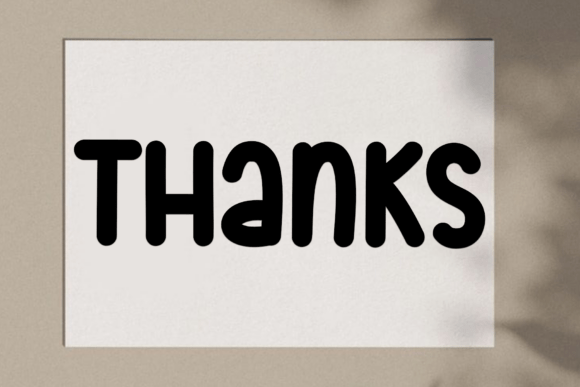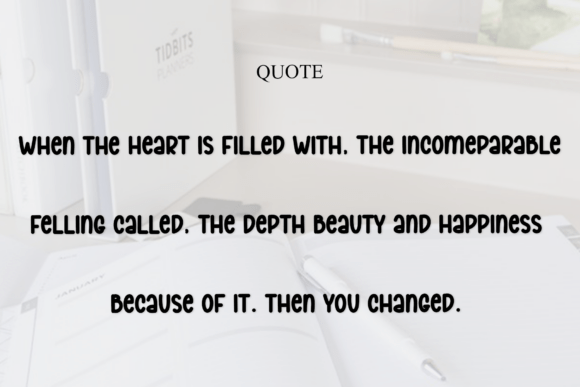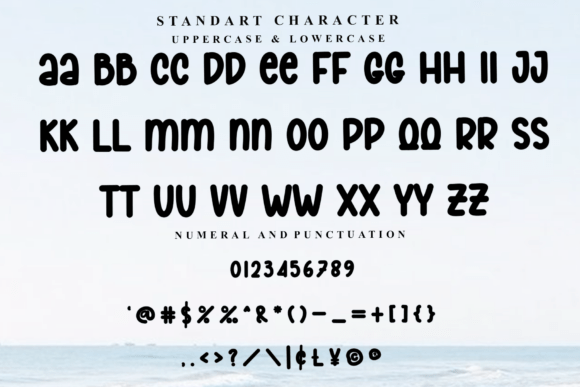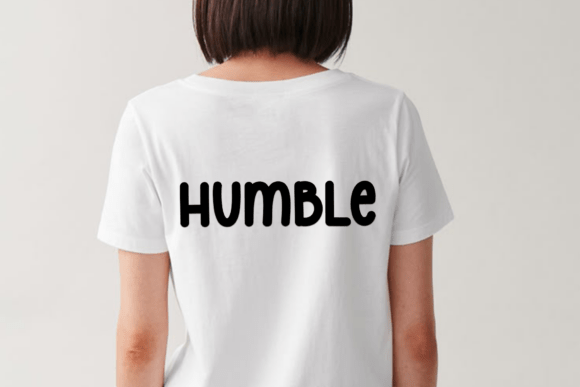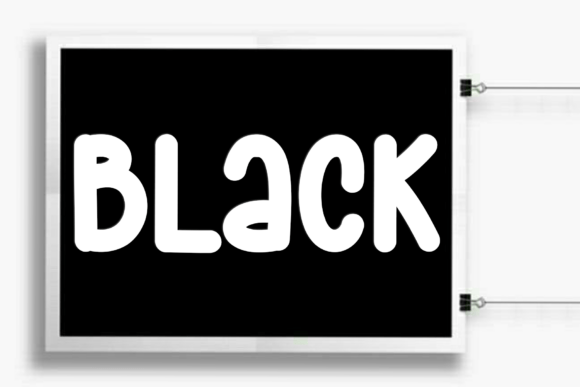
Doughnut Font: The Sweet Addition to Your Design Projects
Are you tired of using the same old fonts in your design projects? Look no further than the Doughnut Font, a beautiful and eye-catching font that is sure to add a touch of sweetness to your creations. Designed with a soft, unique touch, this font is perfect for designers, crafters, and artists looking to add a special character to their work.
A Unique and Versatile Font
The Doughnut Font is a distinctive font that stands out from the crowd. Its soft, rounded edges and unique strokes give it a special character that makes it meaningful and versatile for future use. Whether you’re working on a design project, crafting a handmade card, or creating a work of art, this font is perfect for adding a personal touch.
Wide Range of Characters
One of the best things about the Doughnut Font is its wide range of characters. With various characters to choose from, you can create unique and interesting text that will capture the attention of your audience. Whether you’re looking to create a bold statement or a subtle design, this font has got you covered.
The Doughnut Font is perfect for a wide range of design projects and crafts. Whether you’re creating a logo, brochure, or social media graphic, this font is sure to make your design stand out. It’s also perfect for crafters who want to add a personal touch to their handmade cards, scrapbook pages, and other creative projects.
Compatibility with Various Applications
Ideal for a Wide Range of Products
The Doughnut Font is ideal for a wide range of products, from digital designs to physical crafts. Whether you’re creating a product for sale or for personal use, this font is sure to enhance your design and make it appealing to a wide range of audiences. From artistic and creative fields to commercial and marketing industries, this font is versatile enough to be used in any context.
Enhance Your Designs with Doughnut Font
With the Doughnut Font, you can enhance your designs and make them more appealing to your audience. Its unique and distinctive character is sure to capture attention and add a touch of personality to your work. Whether you’re a designer, crafter, or artist, this font is a great addition to your toolkit.
Tips for Using Doughnut Font
Here are a few tips for using the Doughnut Font in your design projects and crafts:
- Use it as a statement font to add emphasis to your design
- Pair it with other fonts to create a unique and interesting combination
- Use it in combination with images or graphics to create a visually appealing design
In conclusion, the Doughnut Font is a beautiful and eye-catching font that is perfect for designers, crafters, and artists looking to add a special character to their work. With its unique and versatile design, wide range of characters, and compatibility with various applications, this font is sure to enhance your designs and make them appealing to a wide range of audiences. So why not give it a try and see how it can add a touch of sweetness to your design projects and crafts?